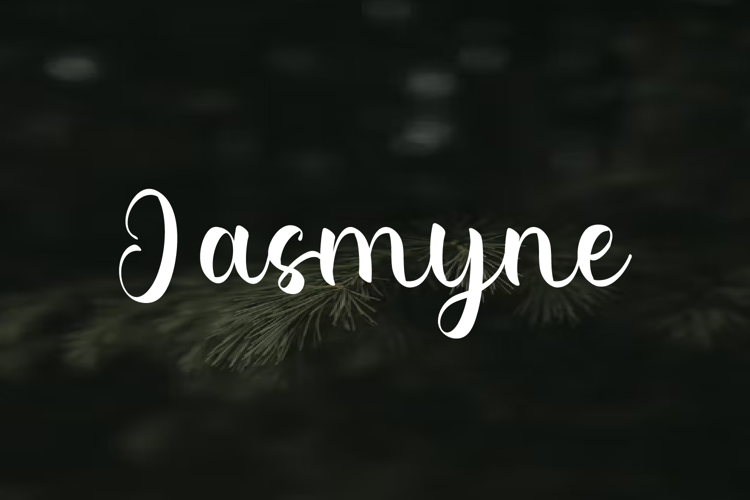
Jasmyne Font
the latest style letters are perfect for wall displays, wedding invitations, social media post logos, advertisements, product packaging, product designs, labels, photography, watermarks, invitations, stationery, and any project that requires taste handwriting.